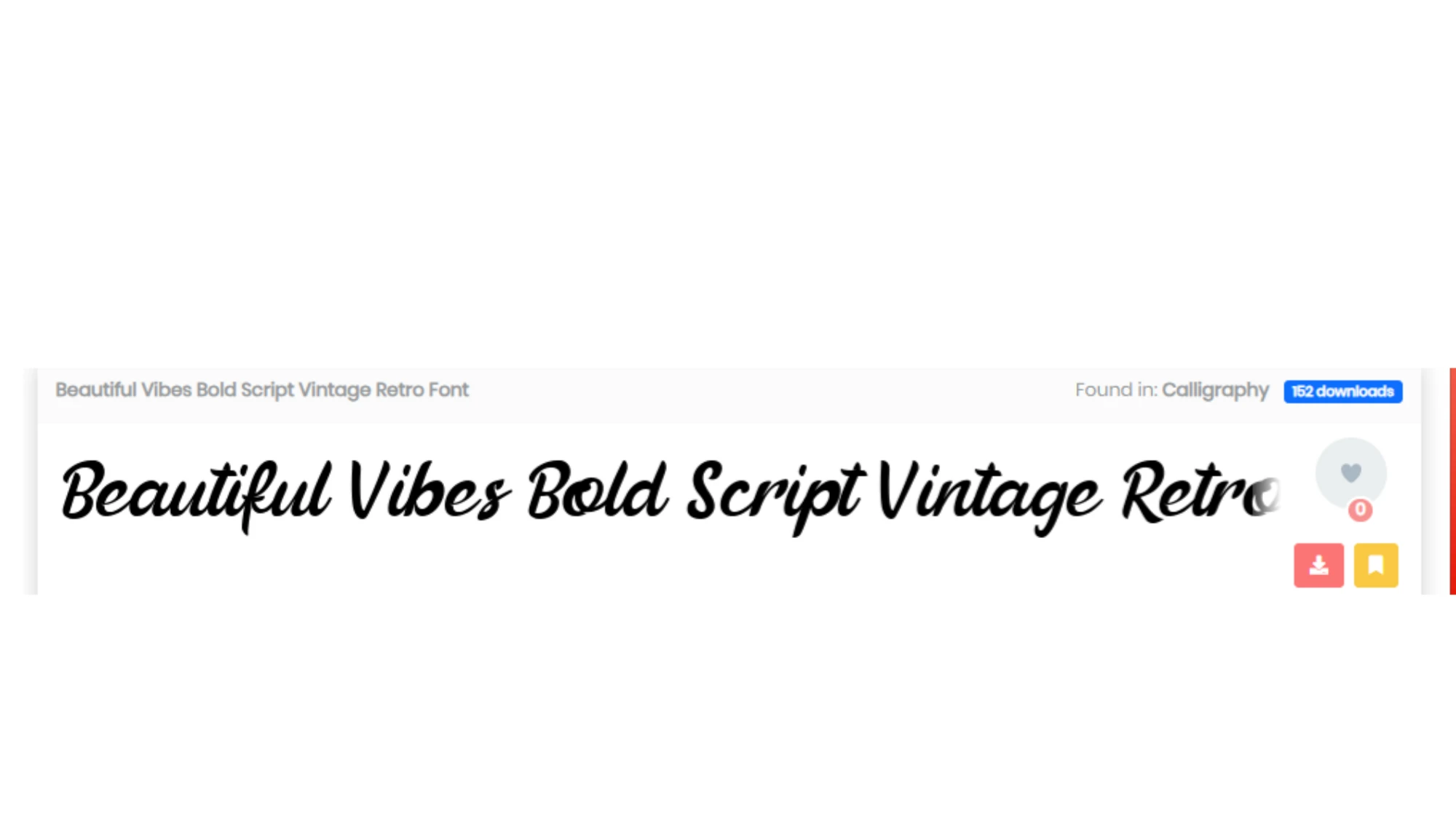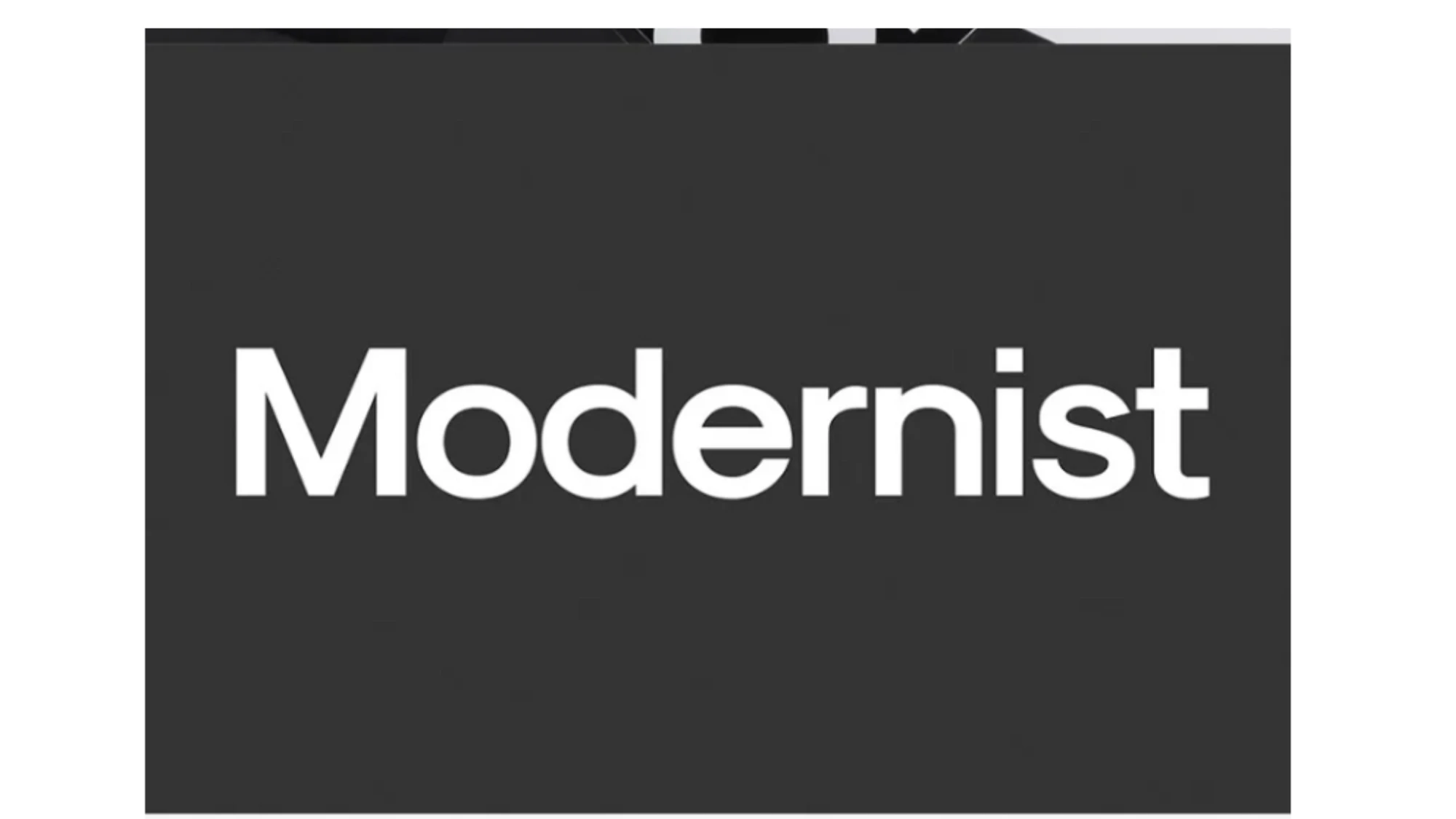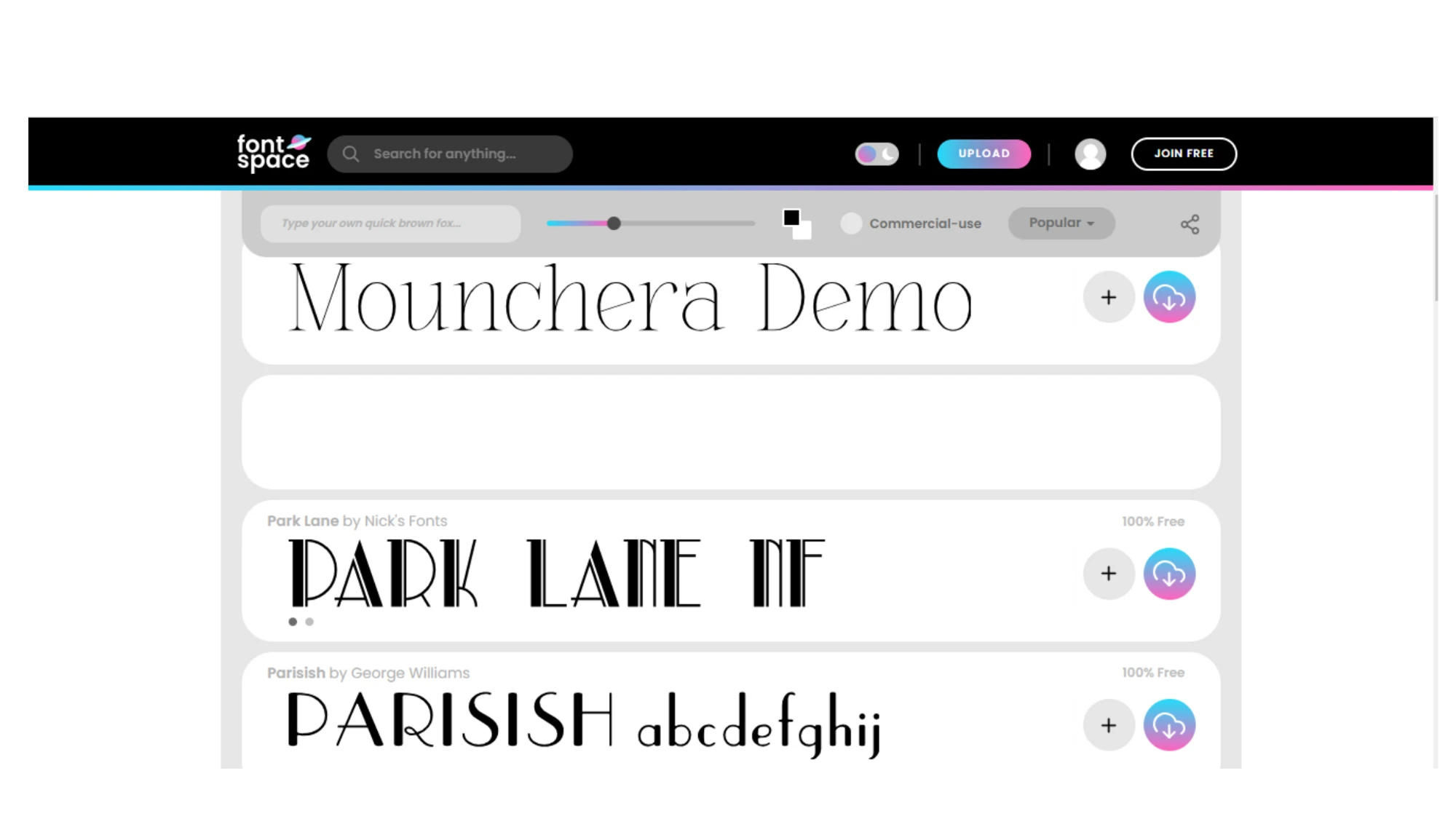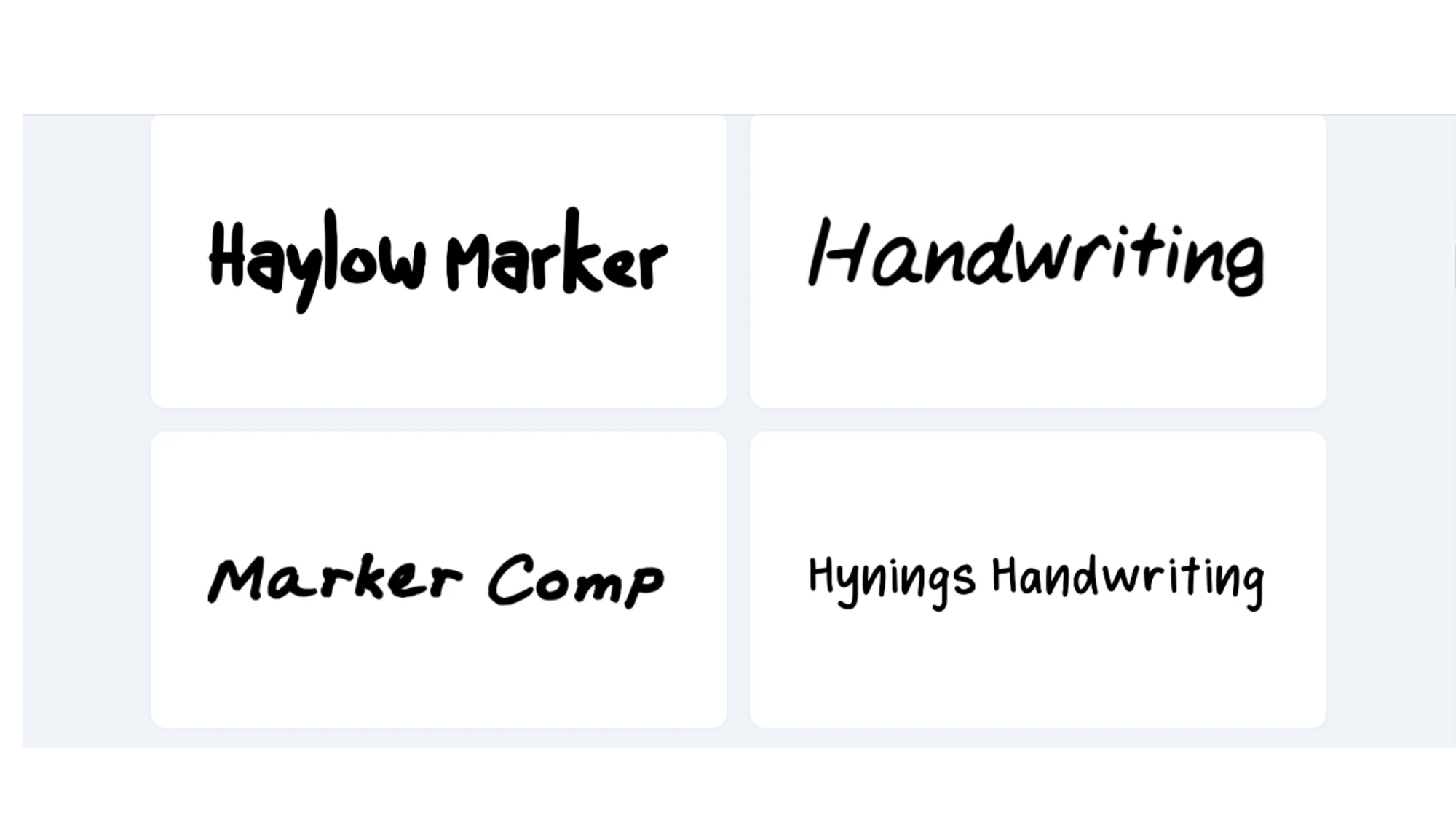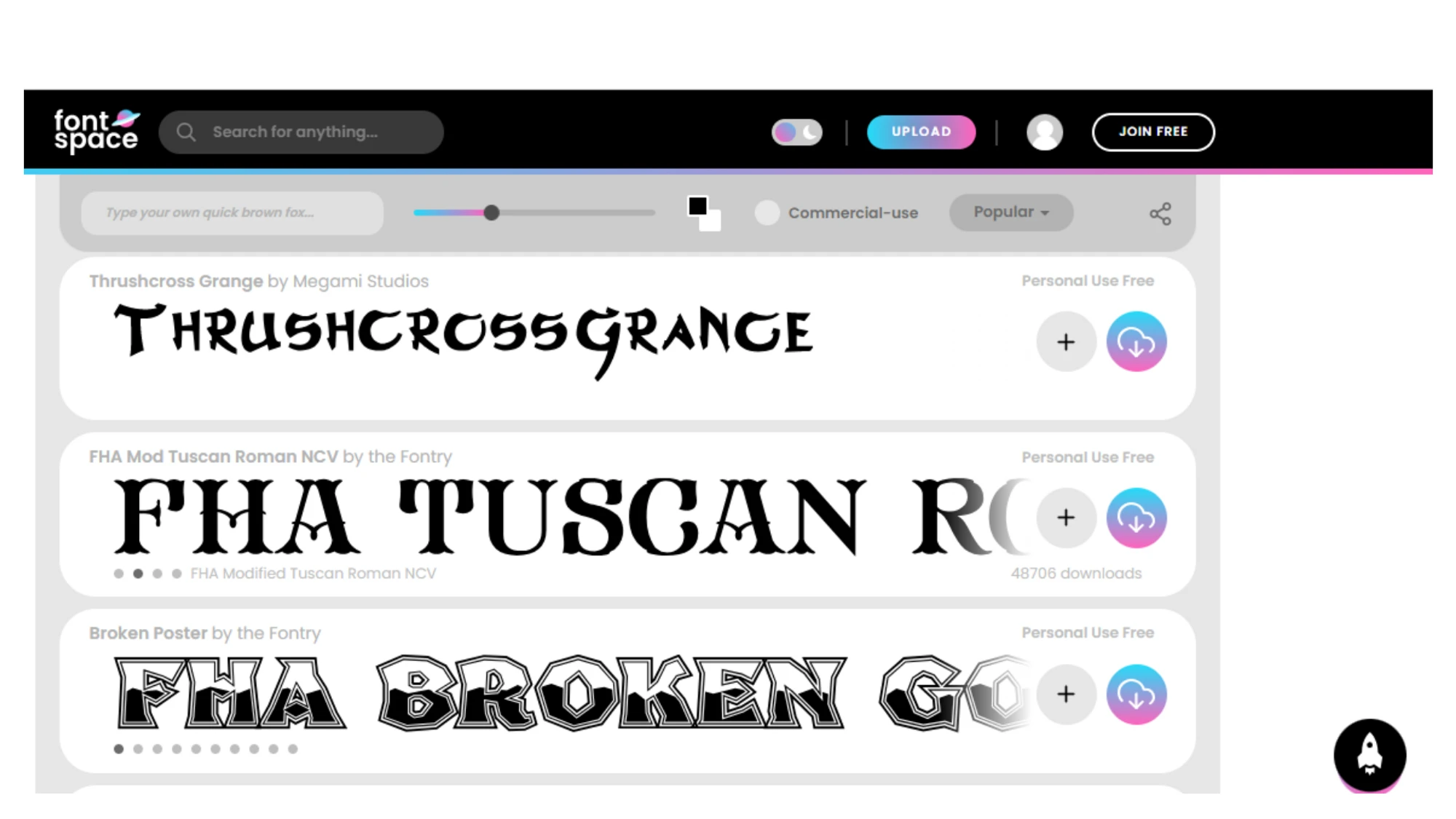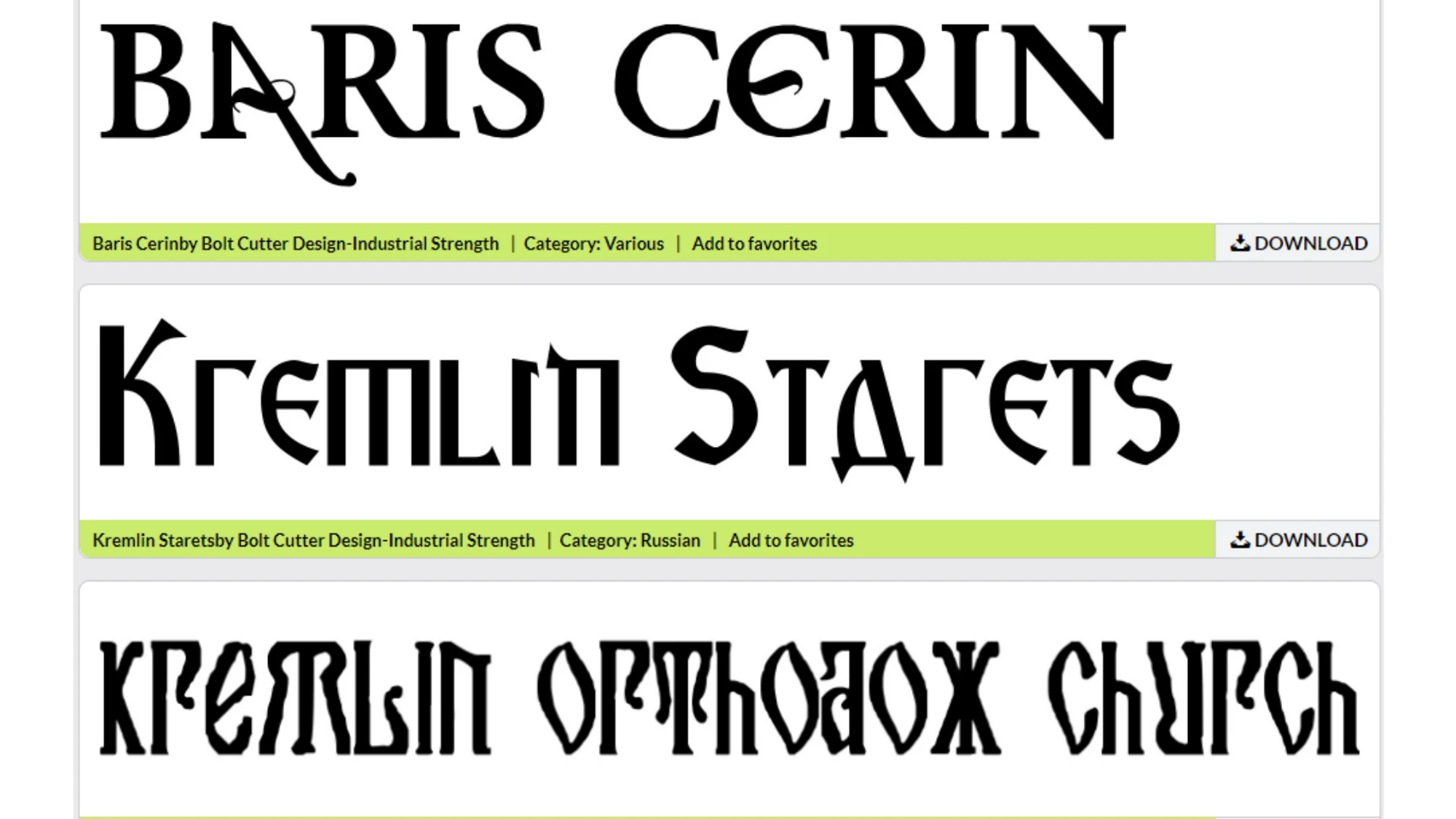
Top 20 Free Fonts for Your Next Design: Discover Possibilities
Welcome to the world of typography treasures! In the realm of design, fonts play a pivotal role in capturing attention, setting the tone, and conveying messages with style and flair. Whether you're a seasoned designer or a passionate creative exploring the art of typography, discovering the best free fonts that are free for commercial use can be a thrilling endeavor.
In this blog, we unveil the top 20 free fonts that are not only trendy and popular but also available for commercial use, making them a valuable resource for your next design project. From whimsical and feminine to bold and adventurous, from elegant and refined to playful and quirky, these fonts are sure to ignite your imagination and elevate your designs to new heights.
Top 20 Best Free Fonts to Stand Out From the Crowd
Whether you're a seasoned designer or a passionate creative exploring the art of typography, discovering the top 20 fonts that are free for commercial use can be a thrilling endeavor. Let’s unveil the top 20 free commercial use fonts that are not only trendy and popular but also available for commercial use:
1. English Serif Fonts
English serif fonts, available at the Eagle community, are a treasure trove of sophistication and classic elegance. Whether you're designing formal invitations, editorial layouts, or vintage-inspired projects, these fonts are your perfect companions.
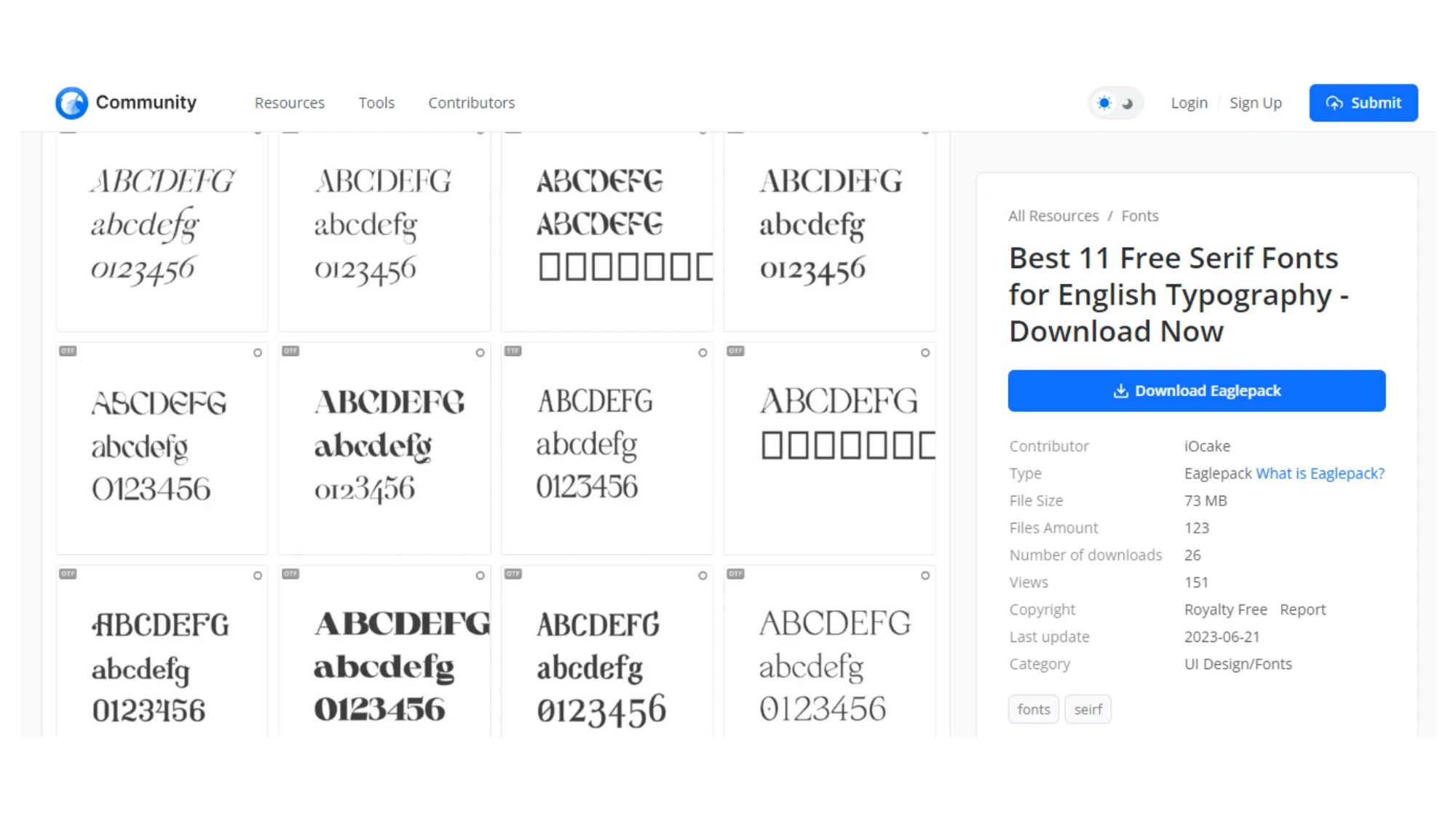
Image of English Serif Fonts
2. Wanderer Font
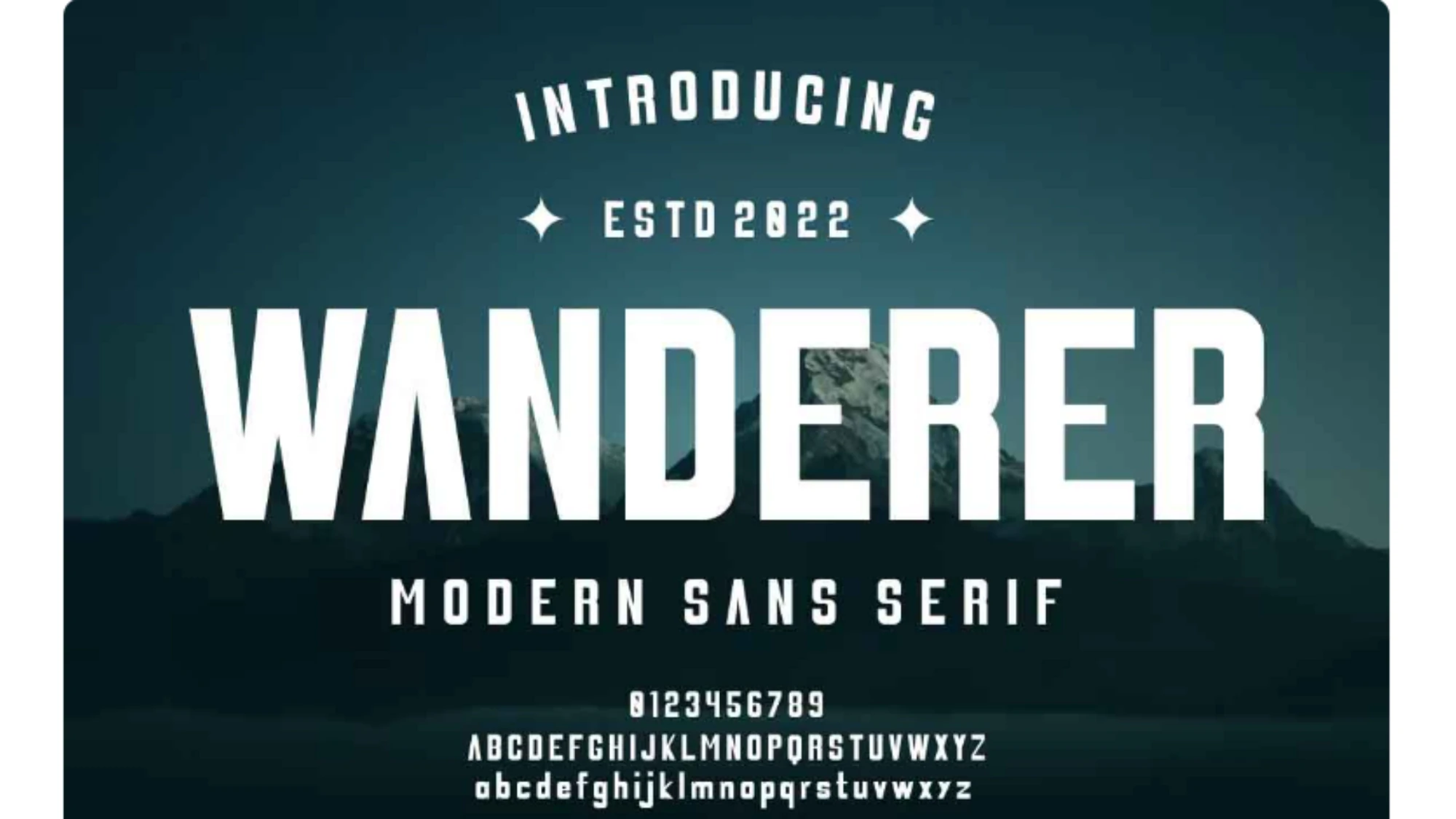
Image of Wanderer Font
Wanderer is a bold and adventurous font ideal for eye-catching headlines, posters, and designs that need a strong visual impact. Its robust and daring letterforms demand attention and convey a sense of boldness and exploration, making it perfect for projects that aim to stand out from the crowd and make a lasting impression.
| Usage Instructions | • Incorporate Wanderer in designs that aim to grab attention, such as event posters, outdoor advertisements, and impactful headlines. • Its versatility allows it to be paired with both modern and vintage elements, creating a striking contrast that elevates the overall visual appeal. |
3. Seraphina Font
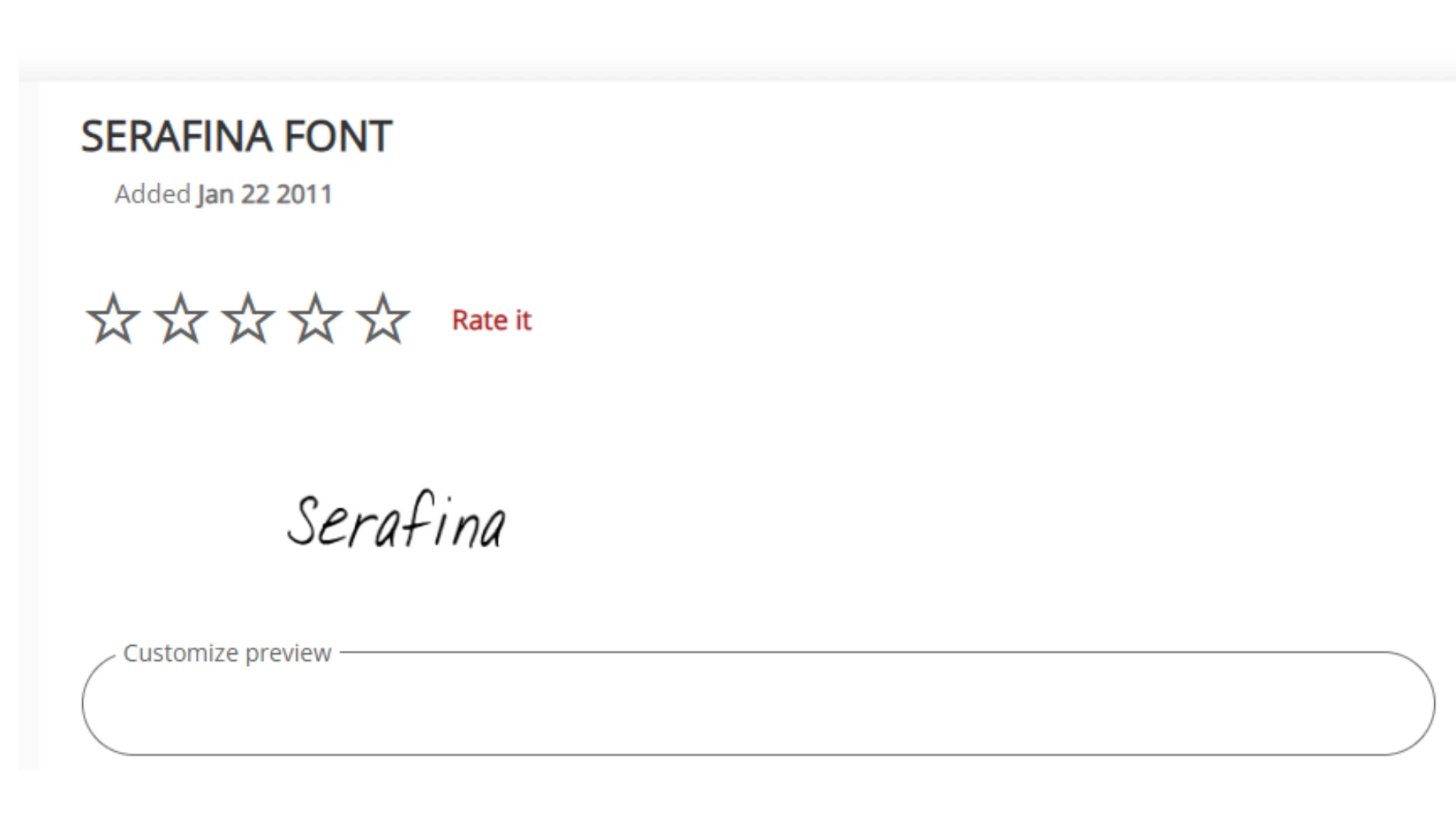
Image of Serfina Font
Seraphina is an elegant font that complements luxury branding, editorial designs, and wedding invitations with its refined and sophisticated style. Its graceful serifs and delicate curves exude a sense of timeless beauty and craftsmanship, making it the perfect choice for projects that require a touch of opulence and class.
| Usage Instructions | • Utilize Seraphina in designs that require a touch of luxury, such as high-end branding, editorial layouts, and upscale event invitations. • Its versatility allows it to adapt to various design styles, whether it's paired with modern or classic elements, resulting in a harmonious and captivating composition. |
4. Quirky Rebel Font
Image of Quirky Rebel Font
Quirky Rebel is a font that unleashes creativity, ideal for artistic projects, eye-catching logos, and designs that demand a unique and quirky touch. Its unconventional letterforms and playful details add a sense of whimsy and personality, making it perfect for projects that strive to break the mold and create a distinctive visual identity.
| Usage Instructions | • Apply Quirky Rebel to designs that require an unconventional and playful element, such as artistic portfolios, creative branding, and quirky marketing materials. • It allows it to be combined with other fonts to create dynamic typographic compositions that express the essence of creativity and originality. |
5. Harmony Font
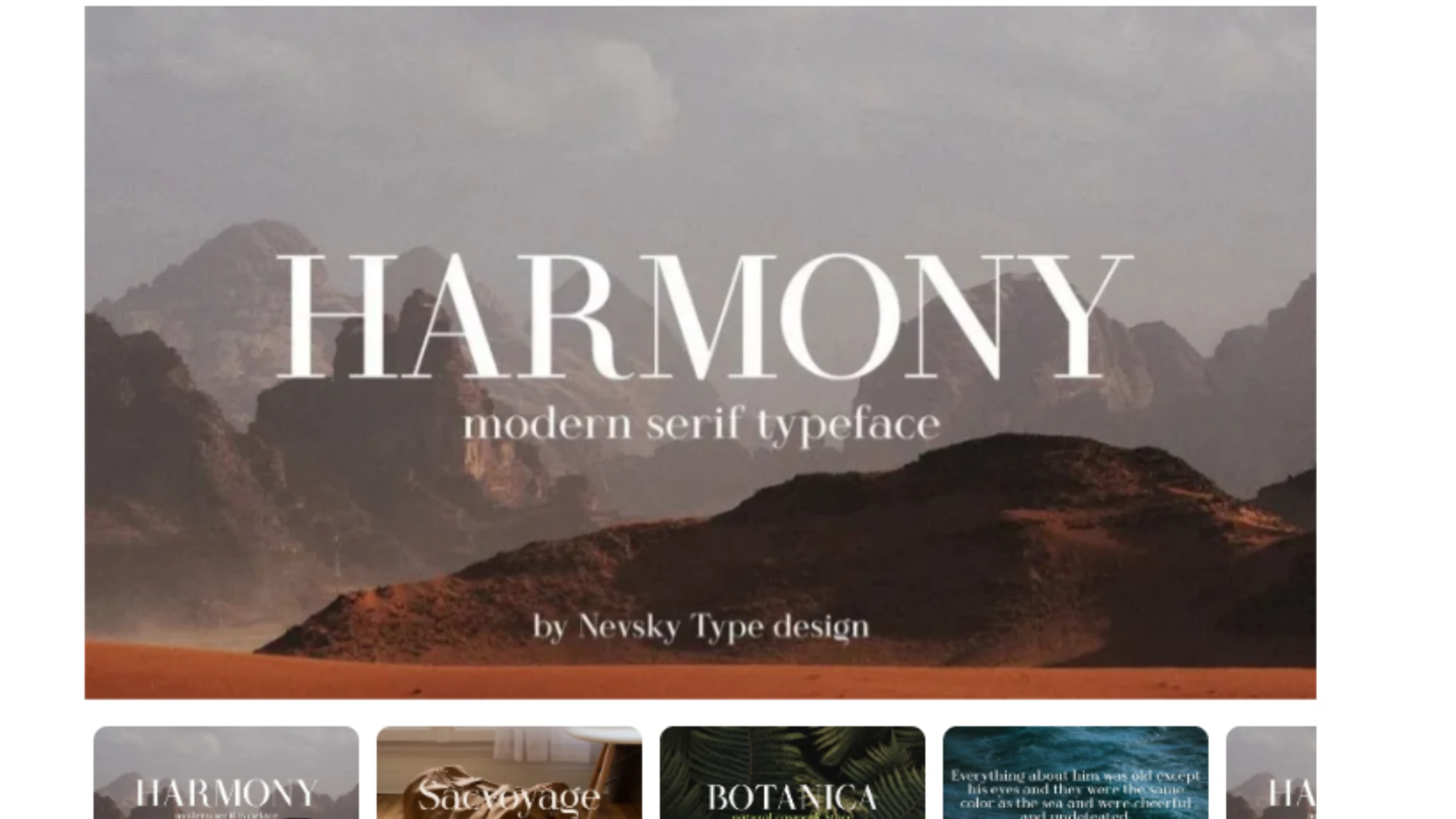
Image of Harmony Font
Harmony is a font that exudes balance and harmony, suitable for visually pleasing compositions, editorial layouts, and branding materials. Its clean and well-proportioned letterforms create a sense of visual equilibrium and cohesion, making it a versatile choice for projects that aim to create a harmonious and visually appealing experience for the viewer.
Whether you seek elegance, playfulness, nostalgia, or modernity, these popular and trendy free fonts cater to a wide range of design needs and purposes. What's more, they can be used for commercial projects without any restrictions. So go ahead, experiment, and let your creativity run wild.